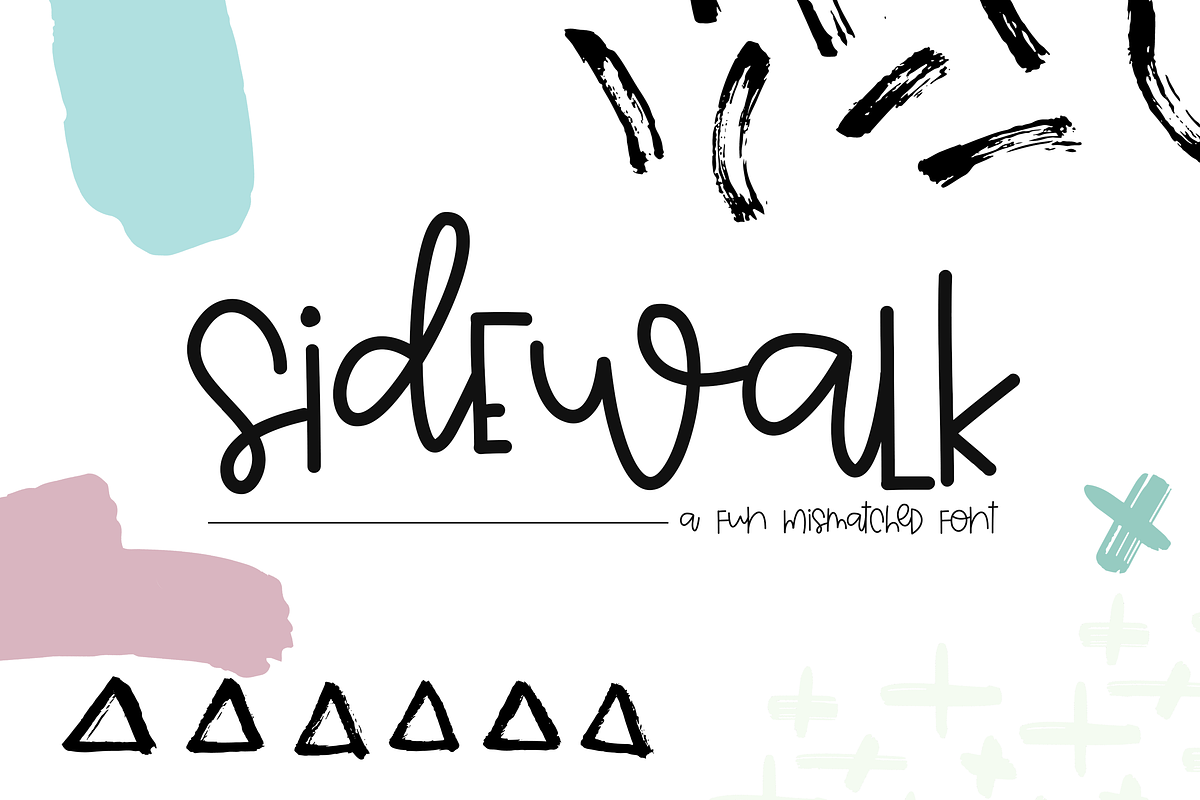
Sidewalk - A Fun Mismatched Font Free Download is a playful and quirky typeface that adds a sense of fun and individuality to any design. With its intentionally mismatched letterforms and lively character, this font is perfect for creating unique logos, event posters, social media graphics, and playful branding. Whether you're designing for a children’s event, a creative brand, or a casual campaign, Sidewalk brings an element of surprise and energy. Sidewalk - A Fun Mismatched Font Free Download lets you explore its whimsical style in personal or concept projects before deciding to purchase a commercial license. Add a touch of personality and charm to your designs with this fun, bold, and lighthearted font that’s sure to grab attention.